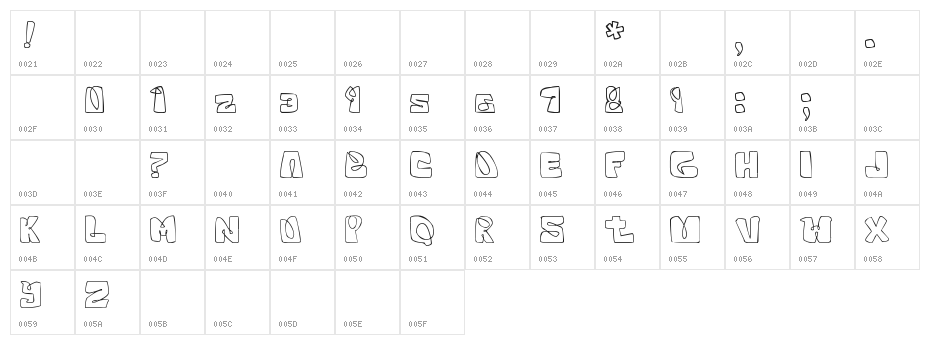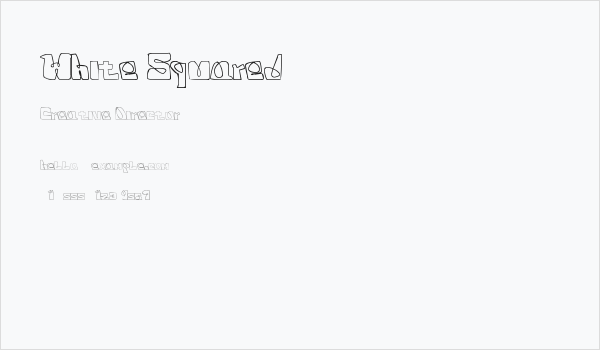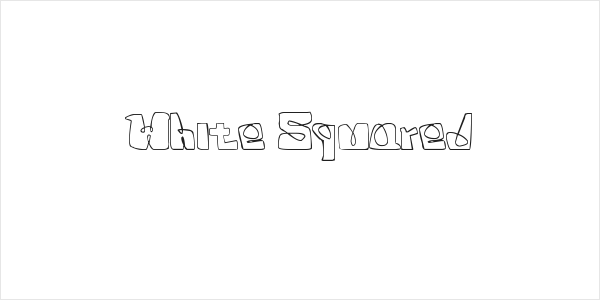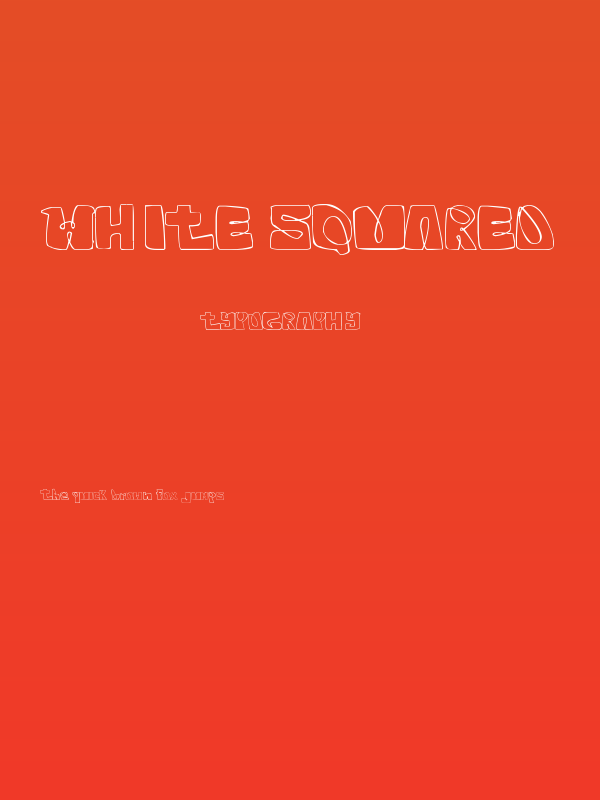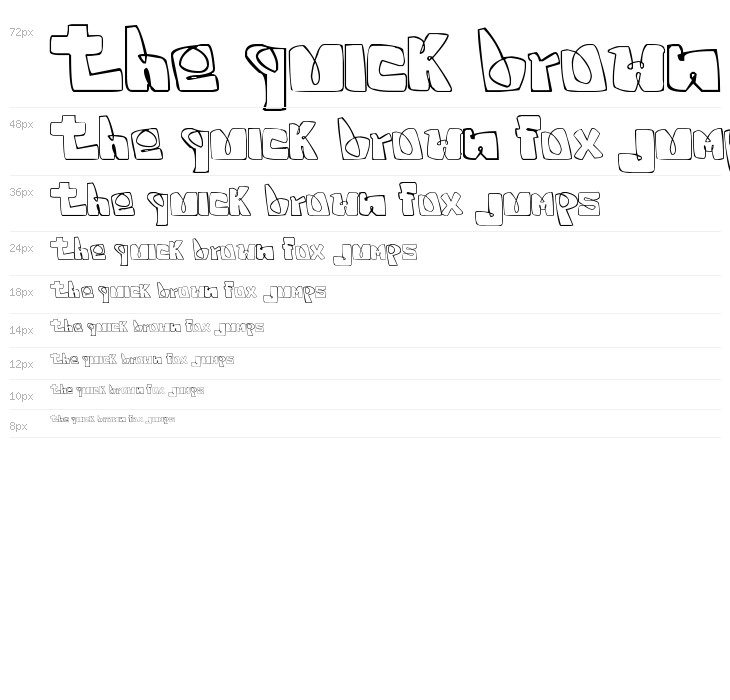
White Squared Font
| Gesamtstil | Modern, Decorative |
| Anwendungsfall | Headlines, Logos, Creative projects |
| Vorgeschlagene Projekte | Ideal for children's books, creative posters, art projects, and playful branding. |